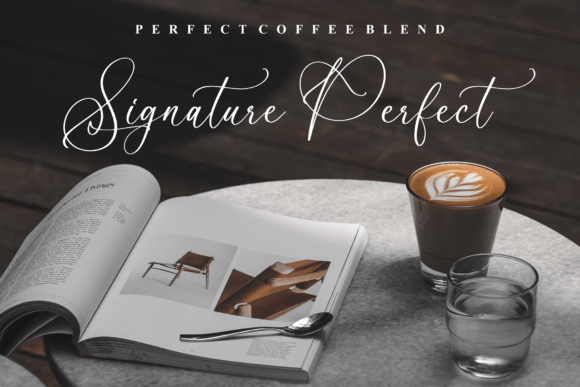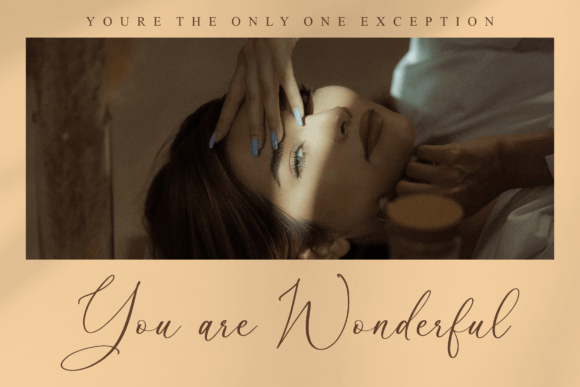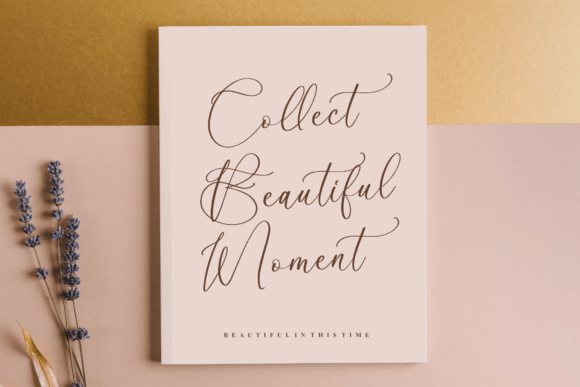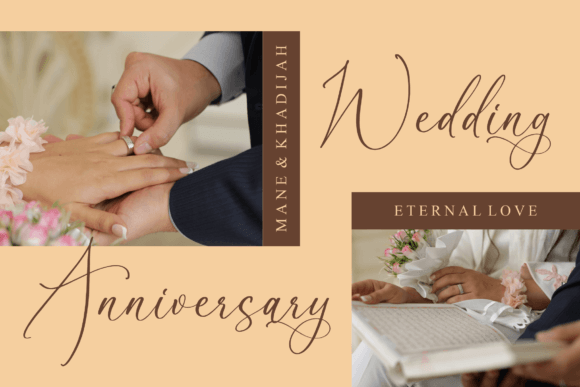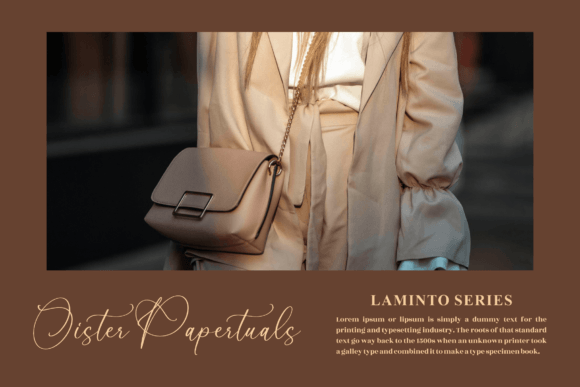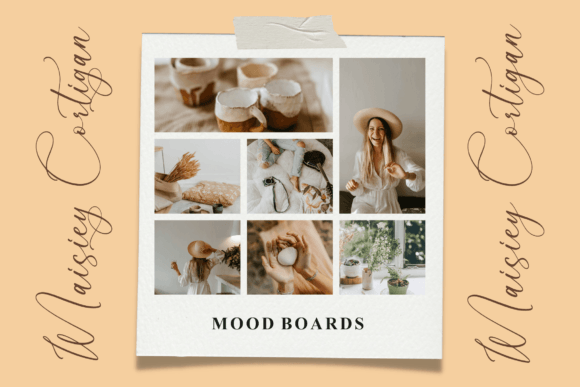
Introduction to Qarthina Selina Font
Remember the moment when you stumbled upon the perfect font for your creative project? It’s like finding a missing piece of a puzzle that completes your design. That’s exactly what we’re excited to share with you today – the Qarthina Selina Font, a beautiful script font that will elevate your designs to new heights.
As designers, we’re always on the lookout for high-quality design resources that can help us bring our ideas to life. And that’s where the Qarthina Selina Font comes in – a versatile and elegant script font that’s perfect for any project, from logos and branding to homeware designs and product packaging. With its transparent background, this font is a must-have for designers who want to add a touch of sophistication to their creative projects.
Key Features of Qarthina Selina Font
- Unique, elegant script font with a transparent background for versatility
- Perfect for use in graphic design, digital art, and typography projects
- Includes 2 font styles (Regular and Script) in a single download
Honest Review: Qarthina Selina Font
I recently stumbled upon the Qarthina Selina Font, and I must say it’s been a game-changer for my creative projects. This design resource is a high-quality addition to any digital artist’s toolkit, offering a beautiful and elegant script font that’s perfect for adding a touch of sophistication to any design.
- ✨ The font’s elegant and refined design makes it ideal for creating beautiful headers and titles.
- ✨ The transparent background feature allows for seamless integration with any design element.
- ⚠️ The font may not be suitable for body text due to its script nature, making it better suited for headlines and titles.
- ⚠️ The font’s size and weight may not be as customizable as some other fonts, which can limit its versatility.
Overall, I’m thoroughly impressed with the Qarthina Selina Font. Its high quality and elegant design make it a valuable addition to any designer’s toolkit. While it may have some limitations, its benefits far outweigh its drawbacks, making it an excellent choice for designers looking to add a touch of sophistication to their creative projects.
Tips for Getting the Most Out of Qarthina Selina Font
Experiment with different font sizes and styles to add visual interest to your design. Use the Qarthina Selina Font in combination with other high-quality fonts to create a unique and professional look.
The Qarthina Selina Font is ideal for a variety of creative projects, including logos, business cards, brochures, and marketing materials. Its high-quality design and transparent background make it a versatile and effective choice for designers and non-designers alike.